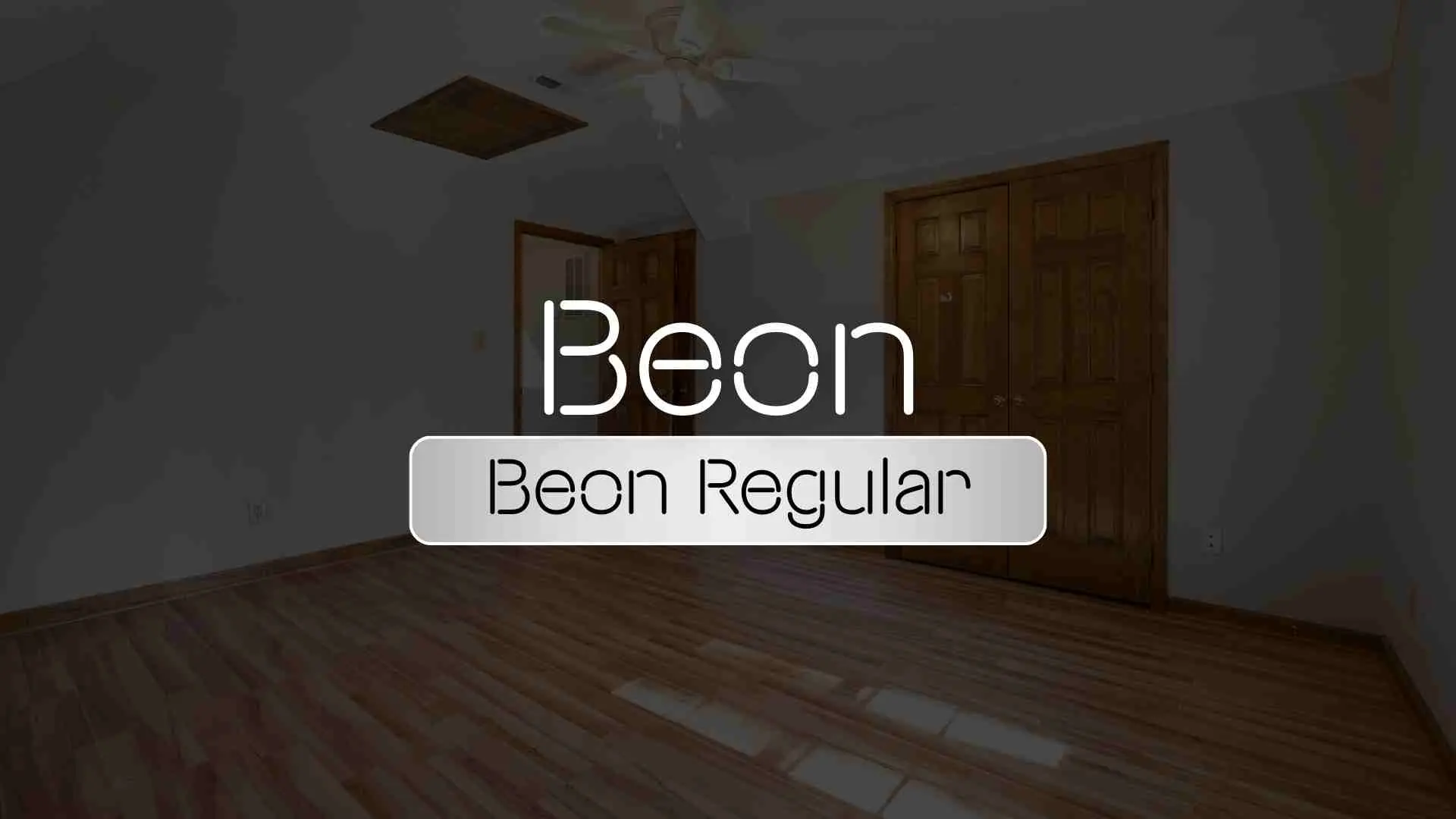
The font Beon Regular, designed by Bastien Sozeau, falls under the Display category & Beon font family. Its smooth, flowing letterforms make it a versatile choice for projects that require both elegance and readability. Beon is particularly well-suited for Branding, Logo, Poster, Signage, Headlines and Short Text. With its balance of simplicity and decorative appeal, this font brings a polished touch to both personal and professional designs.